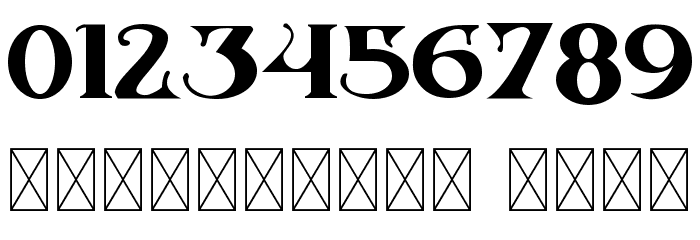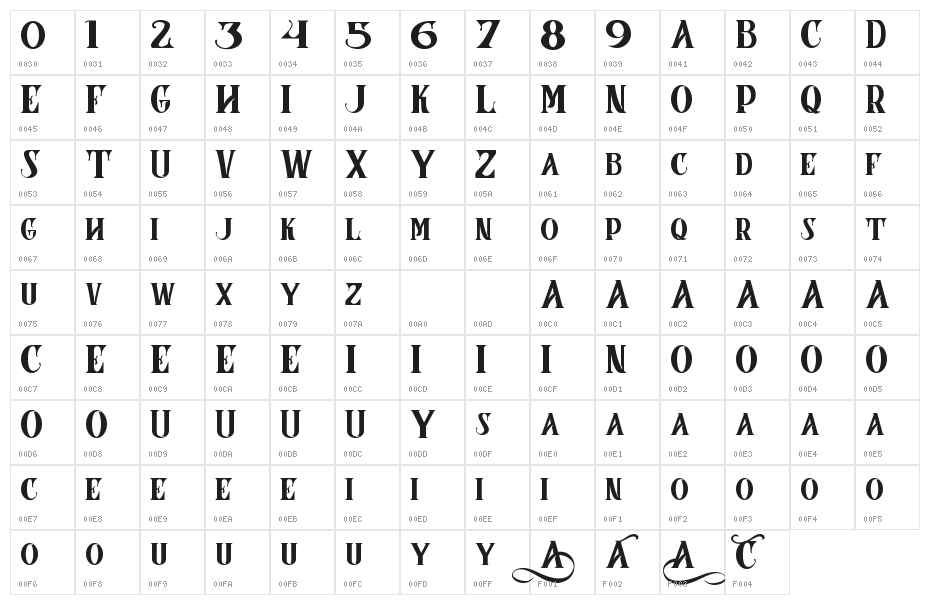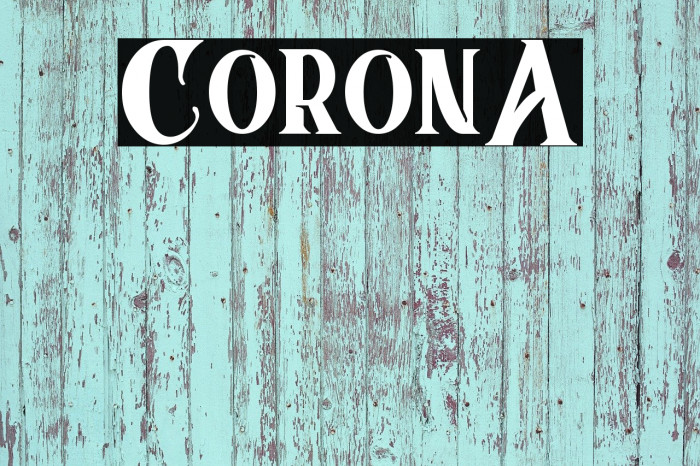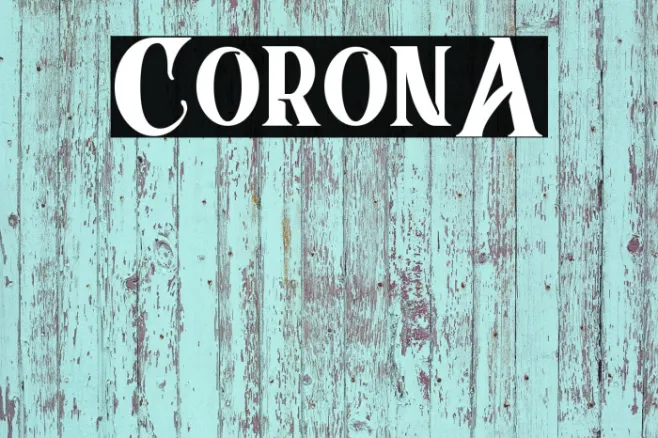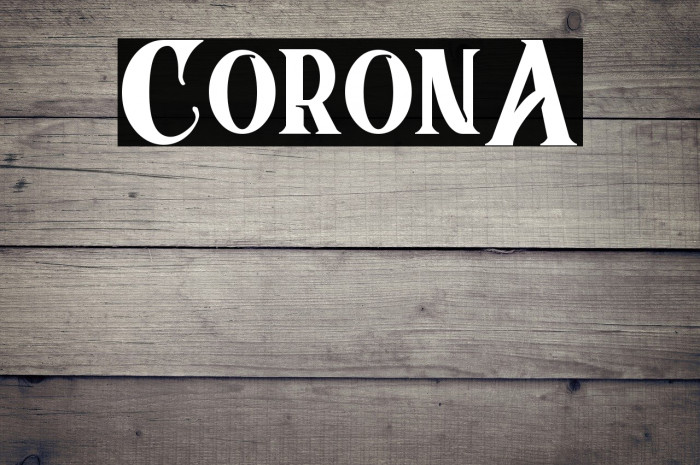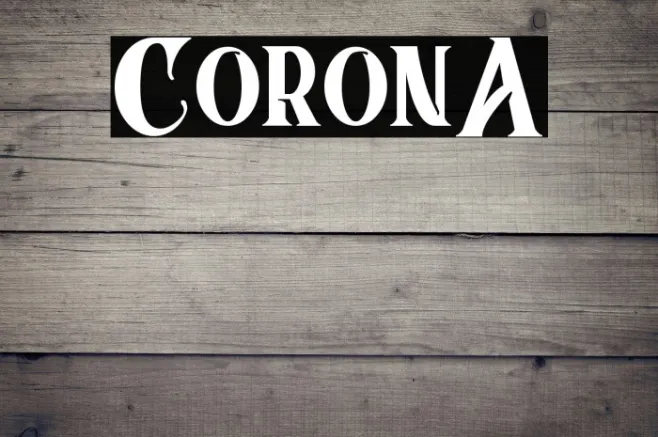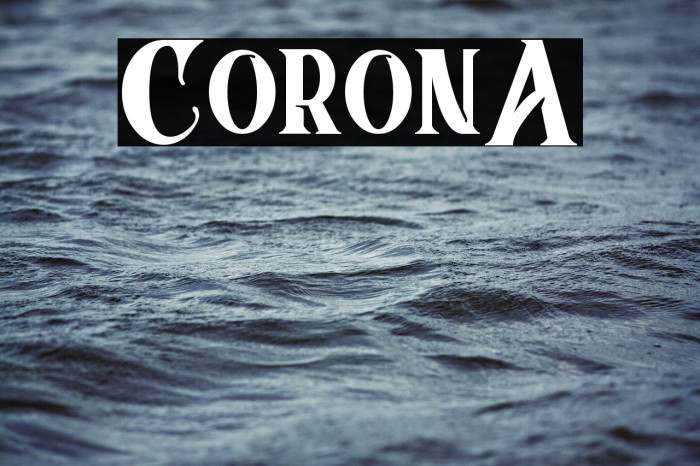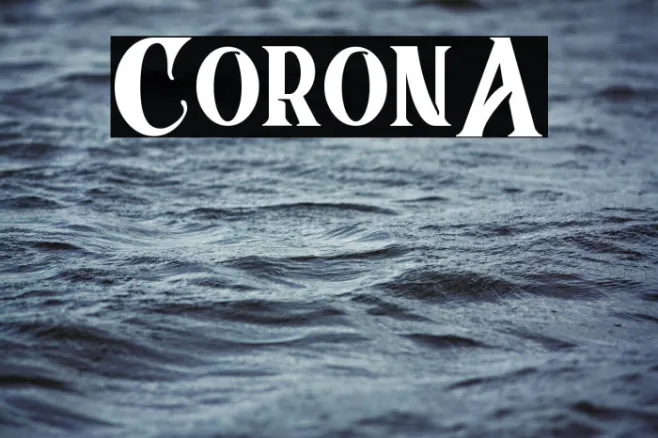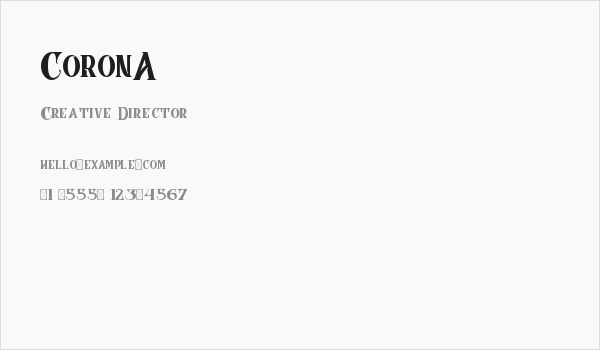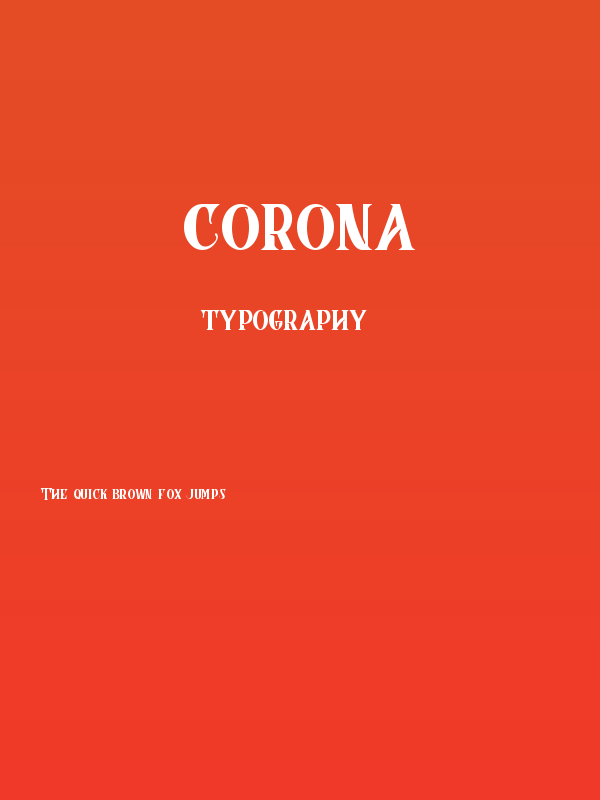
CoronA Font
CoronA Description
This font features a bold and dramatic style with high contrast between thick and thin strokes, giving it a striking and elegant appearance. The serifs are pronounced and slightly curved, adding a touch of sophistication. The uppercase letters are particularly ornate, with unique flourishes that enhance their visual impact. The numbers follow the same stylistic cues, maintaining consistency across the character set. This font's design is reminiscent of classic typefaces but with a modern twist, making it suitable for a variety of creative applications.
| Proposed Projects | Ideal for branding, editorial design, posters, and luxury packaging. |